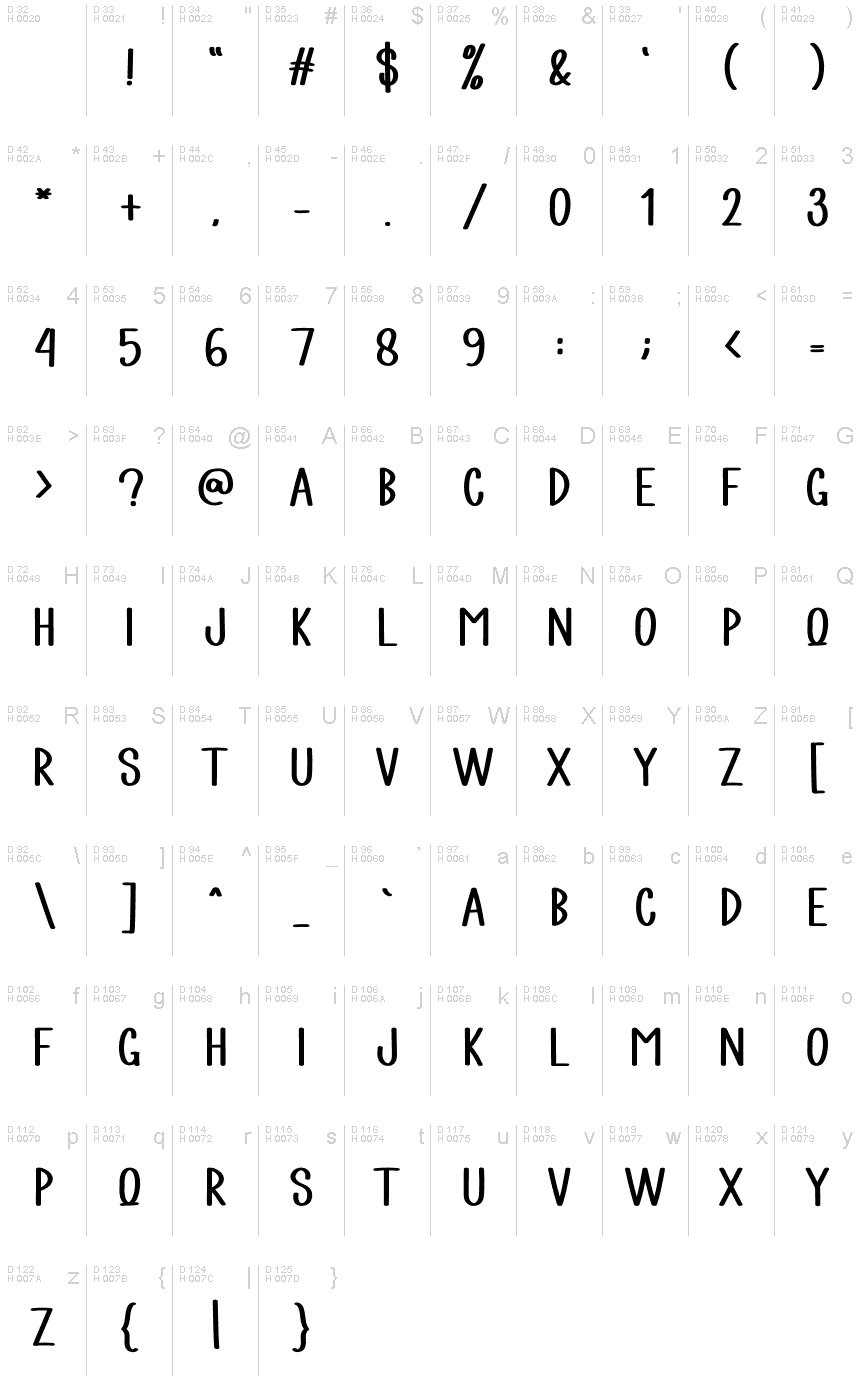
Paper Book
Paper Book, designed by Scratchones, brings the quintessential charm of handwritten script to your fingertips. With its fluid and personable strokes, this font exudes a warmth that is reminiscent of personal notes and diary entries. The organic variability in line thickness and the subtle imperfections of hand-drawn letters give Paper Book an invitingly casual feel.
This artisanal quality ensures Paper Book stands out for projects that require a touch of intimacy and authenticity. Its handwritten style lends itself perfectly to invitations, greeting cards, branding for boutique businesses, or any creative endeavor that benefits from a human touch.
The aesthetic appeal of Paper Book lies in its approachable elegance—neither too whimsical nor overly formal. Its legibility is maintained across various sizes making it versatile for both print and digital media. Embrace the bespoke beauty of Paper Book to infuse your designs with character and originality.